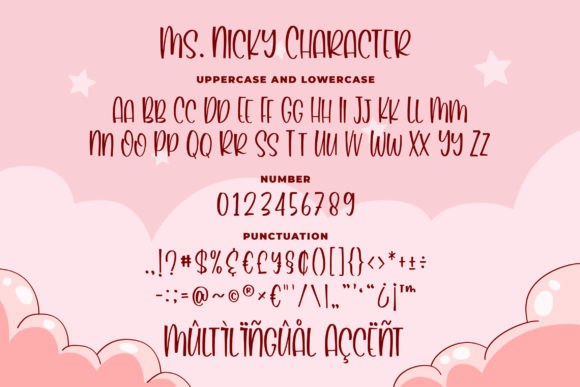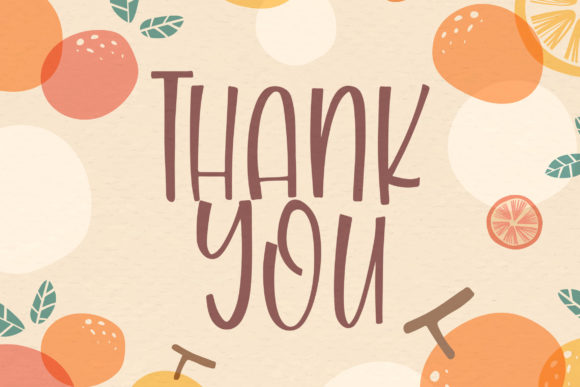
Introduction to Mr. Nicky Font Font
Fonts play a crucial role in design, and the Mr. Nicky Font font is a typeface that brings both character and versatility to any project. Whether you’re working on a branding project, a website, or a print design, the Mr. Nicky Font font offers a unique style that can elevate your work.
Mr.
Nicky is a friendly display font with a unique style Get inspired by its fun nature.
Key Features of Mr. Nicky Font Font
Why Choose Mr. Nicky Font Font?
The Mr. Nicky Font font is more than just a typeface – it’s a design tool that helps you communicate your message with style and clarity. Its unique character set and versatile design make it suitable for a wide range of applications, from elegant invitations to bold headlines.
With its carefully crafted letterforms and balanced proportions, the Mr. Nicky Font font ensures readability and visual appeal across all mediums.
What makes Mr. Nicky Font font special?
The Mr. Nicky Font font stands out with its unique design, exceptional readability, and versatility across various design applications.